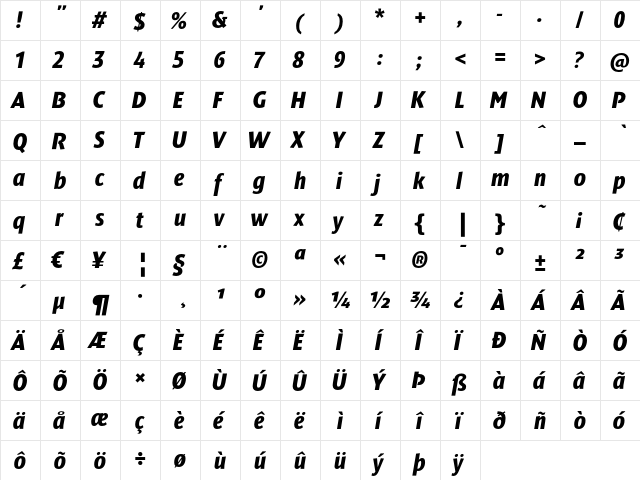
DendaNewCond BlackItalic
Design Context for DendaNewCond Typeface
DendaNewCond is a composed and adaptable typeface that performs quietly and consistently across a wide range of design contexts. The slanted form adds forward momentum and visual energy. The condensed width makes it efficient for tight spaces without sacrificing legibility.
Pro Tip: Use DendaNewCond for emphasis, pull quotes, and subheadings where its slanted energy can add rhythm to the layout.